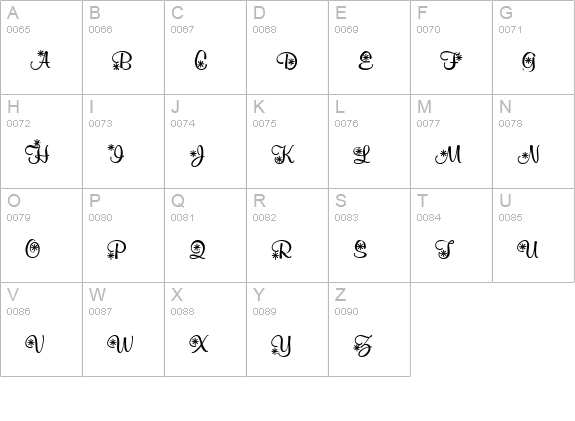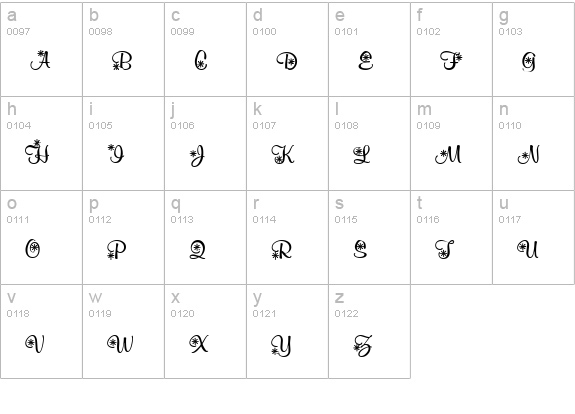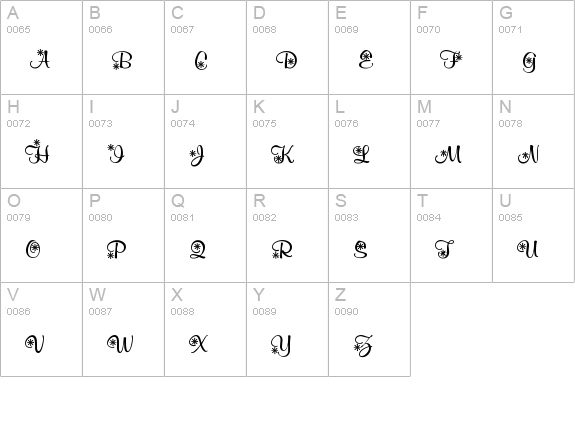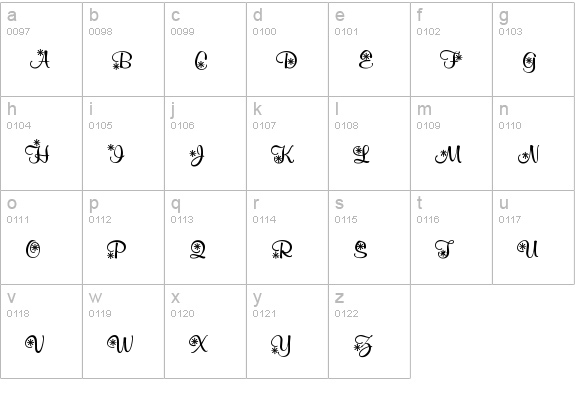
KR Snowflake 2 Font Details
KR Snowflake 2 is a whimsical and festive font that captures the magic of the holiday season. With its delicate snowflake-inspired design, this font is perfect for adding a touch of winter wonder to your projects. Each letter is intricately crafted to resemble a unique snowflake, making it a standout choice for invitations, greeting cards, and other seasonal designs. The beauty of KR Snowflake 2 lies in its versatility. Whether you're creating a cozy winter-themed design or adding a touch of frosty charm to your branding, this font is sure to make an impact. Its elegant and playful style will bring a touch of seasonal cheer to any project. Best of all, KR Snowflake 2 is available for free download at FontsMarket.com. This means you can easily add this enchanting font to your collection without breaking the bank. So go ahead and bring a touch of winter magic to your designs with KR Snowflake 2!